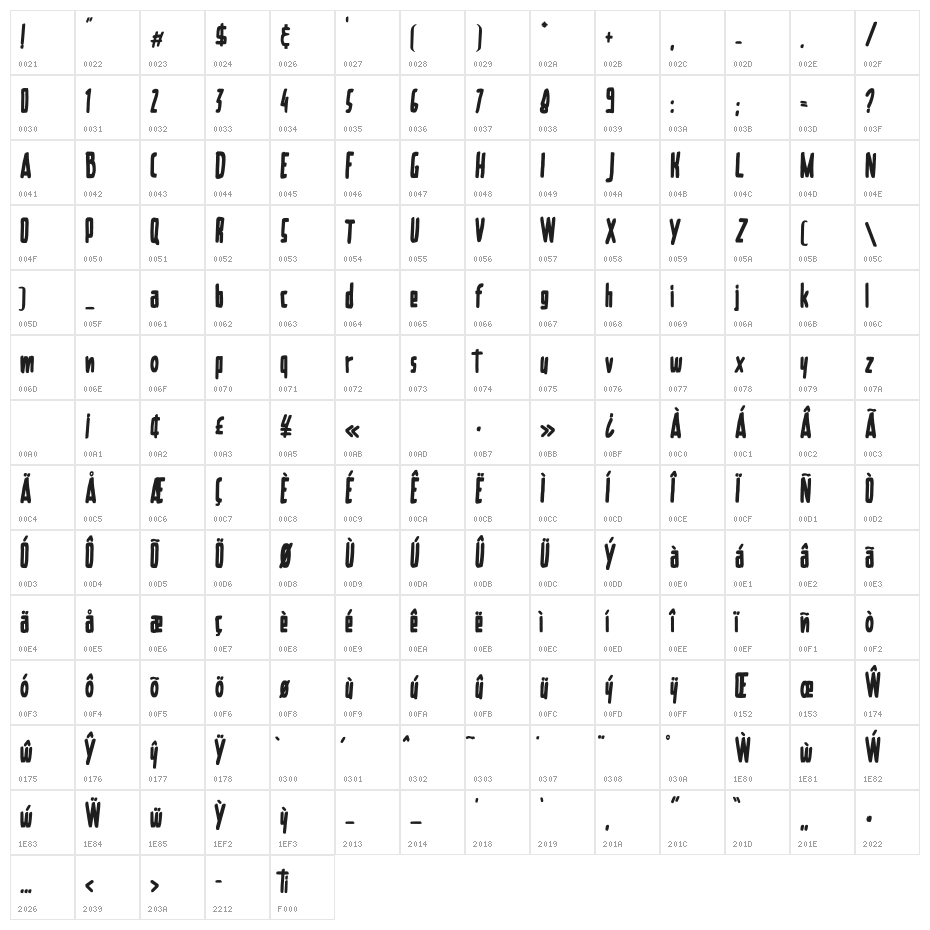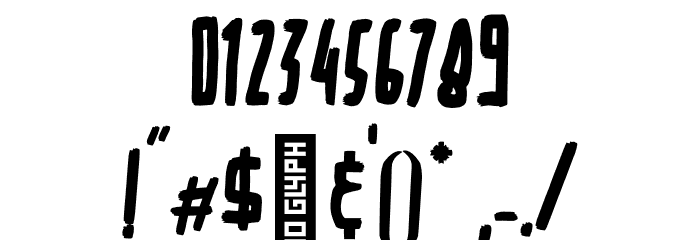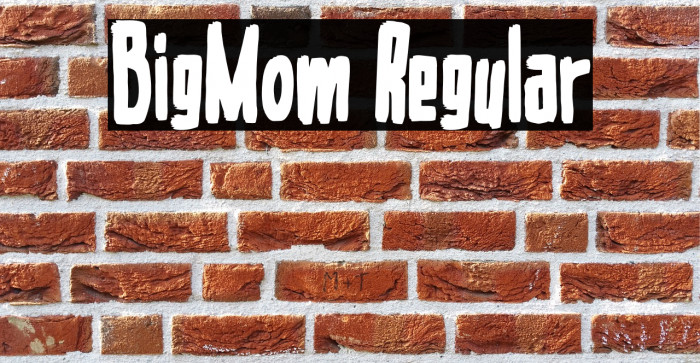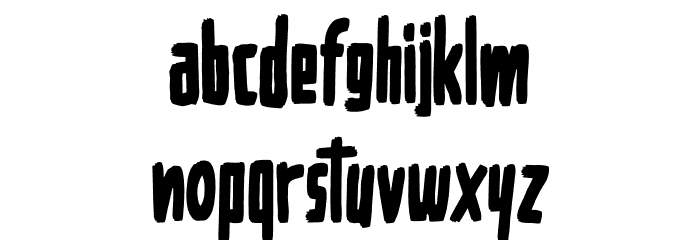
BigMom Regular Font
BigMom Regular Description
This font features a bold and dynamic style with a hand-drawn appearance. The characters are thick and slightly irregular, giving it a playful and energetic feel. The uppercase letters are tall and commanding, while the lowercase letters maintain a consistent flow with rounded edges. The numerals are equally bold, ensuring visibility and impact. Special characters are creatively designed, maintaining the overall aesthetic. This font is perfect for projects that require a strong, attention-grabbing typeface with a touch of personality.